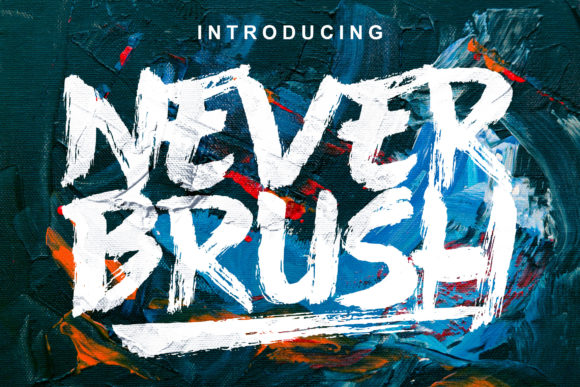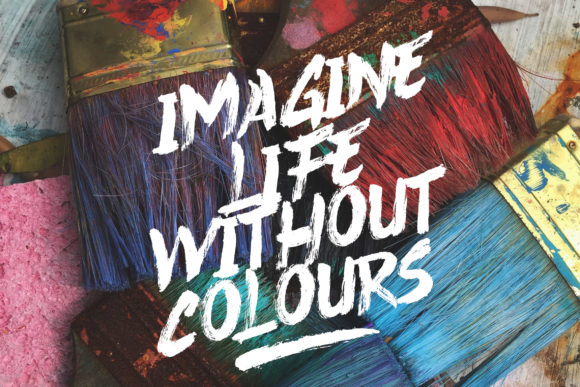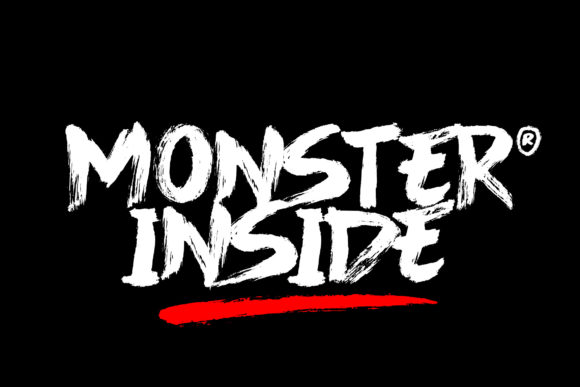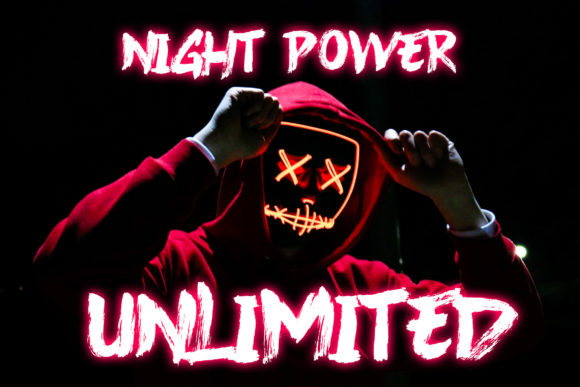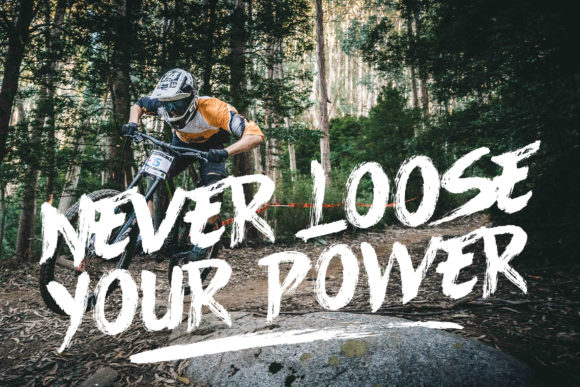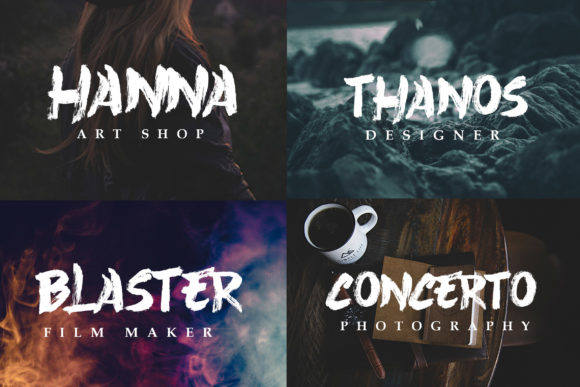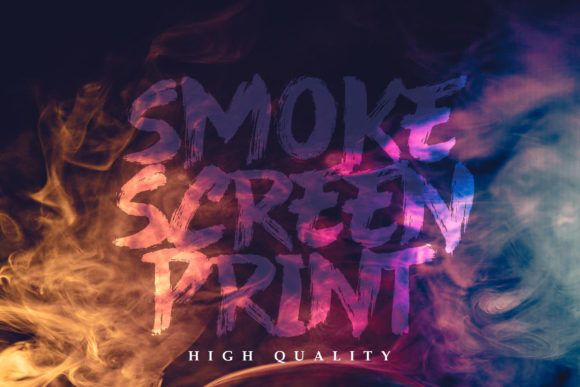
HomeScript FontsNever Brush Font Script Fonts Never Brush Font FacebookXPinterestWhatsApp Never Brush Font Poster 2 Never Brush Font Poster 3 Never Brush Font Poster 4 Never Brush Font Poster 5 Never Brush Font Poster 6 Never Brush Font Poster 7 About Never Brush Font Never Brush is an incredible brush font with an organic feel. Get inspired by its bold and urban charm! DOWNLOAD ON CREATIVE FABRICAThis font is sold and delivered by Creative Fabrica. Font Canyon may earn a commission if you buy through this link. People also explored Groovy Thanksgiving Font School Bus Font Roundsans Font Croissant Lover Font Stonery Font Coldcoast Font Friend the Best Font Monstere Font Ready Font 503 0 TagsNever Brush Font Previous articleKelik FontNext articleMollaroid Font LEAVE A REPLY Cancel reply Comment: Please enter your comment! Name:* Please enter your name here Email:* You have entered an incorrect email address! Please enter your email address here Website: Save my name, email, and website in this browser for the next time I comment. Personal Use Free Hearted Personal Use Free Read more about this font Krabuler Personal Use Free Read more about this font Cloudy Night Personal Use Free Read more about this font Homelands Personal Use Free Read more about this font BLOG Free vs Paid Fonts: Why Investing in Premium Fonts Is Worth It Free vs Paid Fonts: Why Premium Fonts Are Worth It in 2025 The debate of free vs paid fonts continues in the design world. While... Best Fonts for YouTube Videos: Make Your Thumbnails Stand Out Free Fonts Risk: Why Free Fonts Can Be Dangerous for Designers Transform Your Website: Elevate Your Typography with 7 Best Web Font Generators